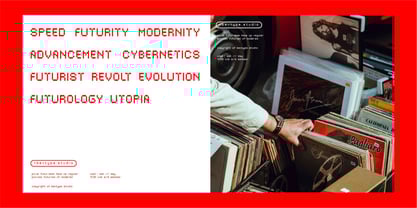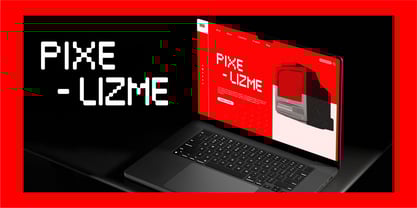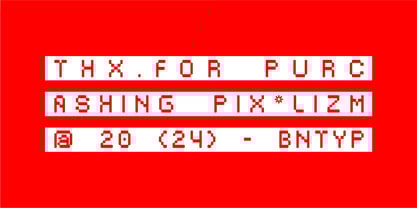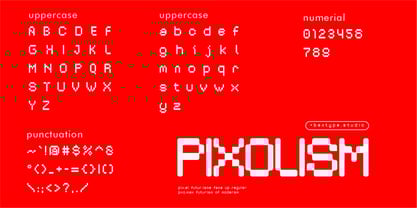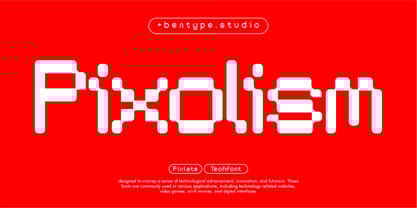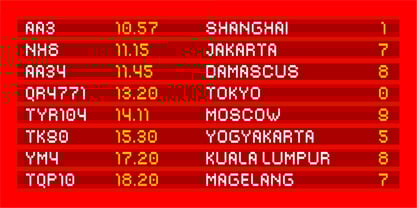
Pixolism
by Bentype
The Pixolism Font Family was designed by Muhammad Farkhan and published by Bentype. Pixolism contains 1 styles. More about this family
Pixolism - tech font display is a unique and specialized typeface option, particularly suited for digital projects where a retro aesthetic or low-resolution display is desired. Despite their limitations in character set and resolution, pixel fonts remain popular among designers for their distinct visual appeal and nostalgic charm. Font Includes Upper Case Lower Case Numbers Punctuation Contact us if you need help. I hope you enjoy and thank you.
Designers: Muhammad Farkhan
Foundry: Bentype